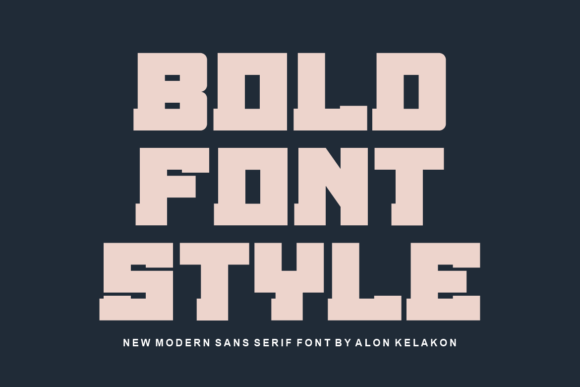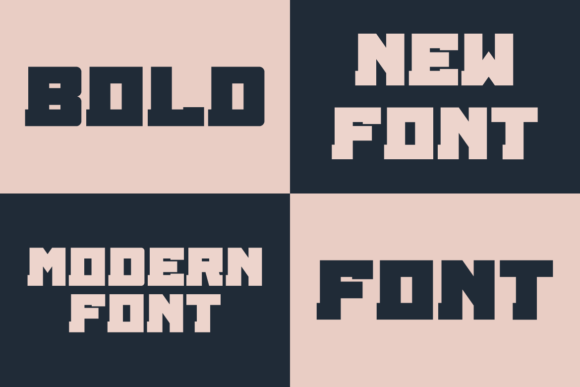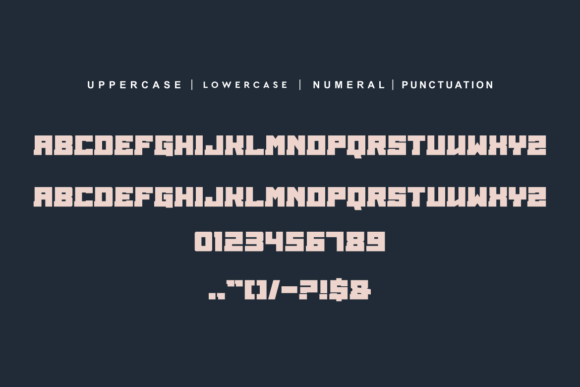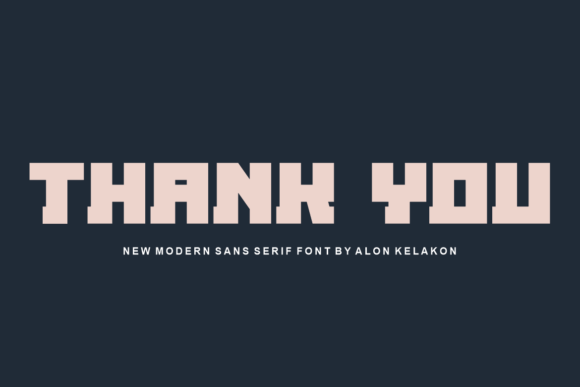
in Serif FontsKogrand FontAbout Kogrand Font 100 Views View Gallery 5 images KOGRAND FONT SPECIMENKogrand is an extremely bold slab serif font with capital letters. It is ready to use for your designs like labeling, clothing, movie scenes, posters, movie titles, gigs, album covers, logos, and much more. Kogrand Font Written by canyonadmin Leave a Reply Cancel replyYour email address will not be published. Required fields are marked *Comment *Name * Email * Website Save my name, email, and website in this browser for the next time I comment.